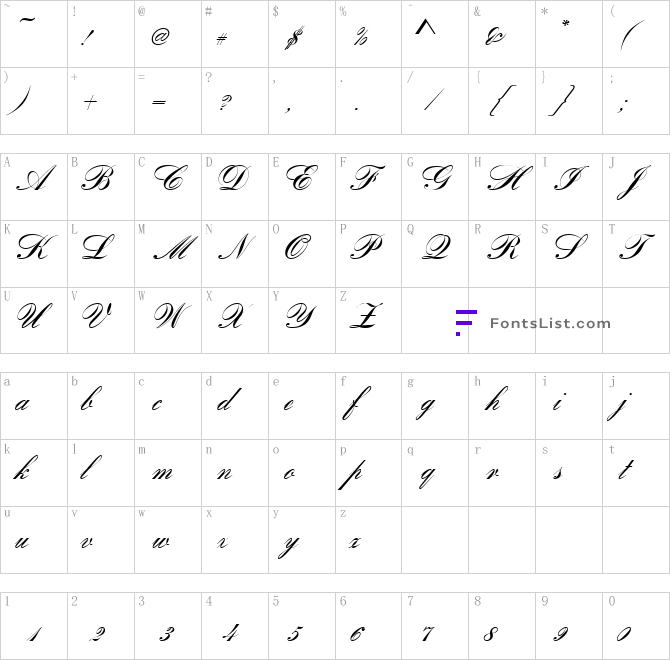
- Font Name:BankScrD
BankScrD.ttf is a very beautiful artistic font, BankScrD.ttf is widely used in the design and printing of various books and pictures,BankScrD.ttf has a strong visual impact,BankScrD.ttf is a commonly used font in newspapers, magazines and books, and is used in posters, e-commerce Poster design, store design, logo design, font design and other fields.BankScrD.